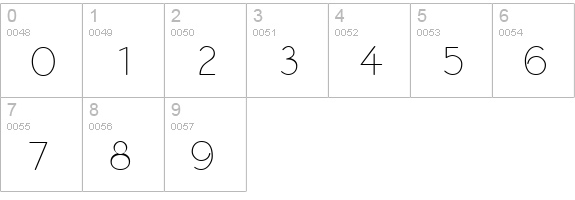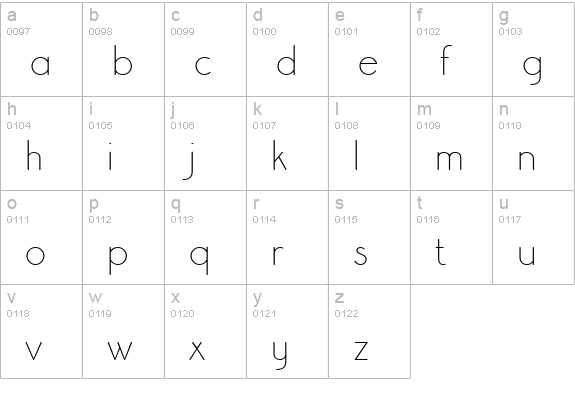
Register Sans BTN Lt is a sleek and modern font that exudes professionalism and sophistication. With its clean lines and elegant curves, this font is perfect for any project that requires a clean and polished look. Whether it's for a professional presentation, a sleek website design, or a stylish logo, Register Sans BTN Lt is sure to impress. What sets Register Sans BTN Lt apart is not only its stunning design, but also the fact that it is freely available to download at FontsMarket.com. This means that you can easily access and use this font for any personal or commercial project without having to spend a dime. With Register Sans BTN Lt, you can elevate your designs to new heights without breaking the bank. Its versatility makes it suitable for a wide range of applications, from print materials such as brochures and business cards, to digital media like websites and social media graphics. The possibilities are endless with this font. So why wait? Download Register Sans BTN Lt today from FontsMarket.com and enhance your designs with this stylish and professional font. The best part? It's completely free!